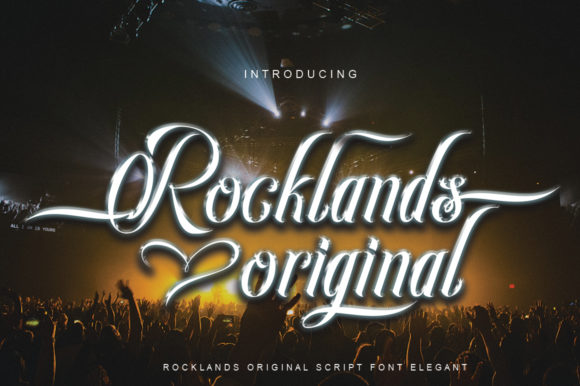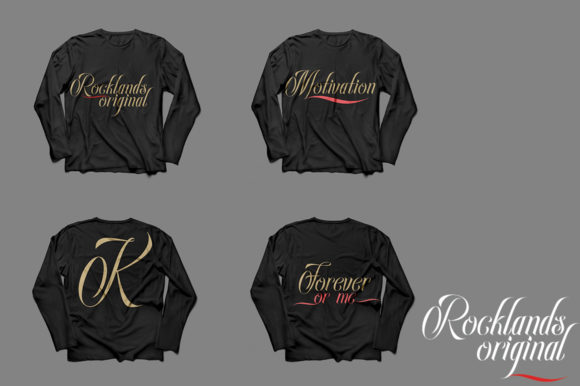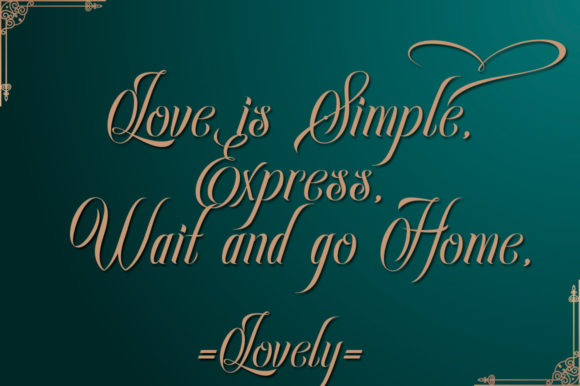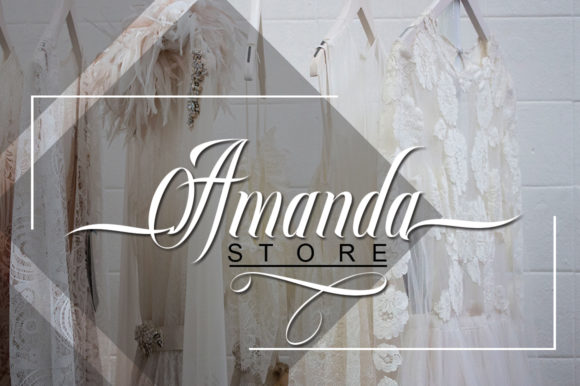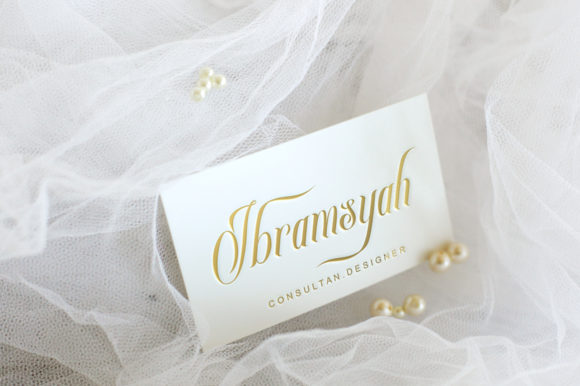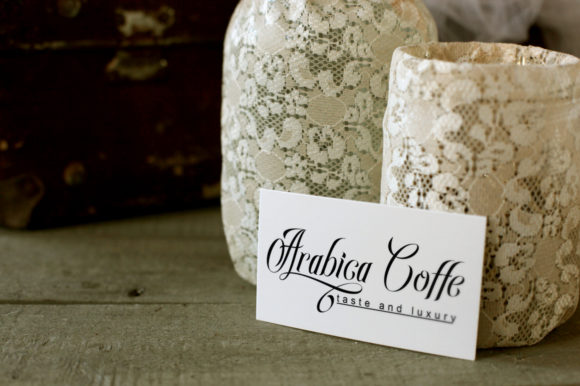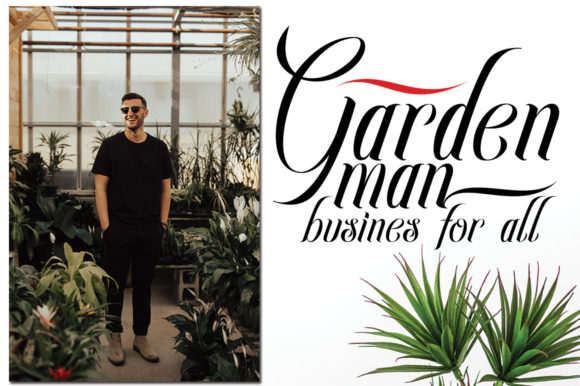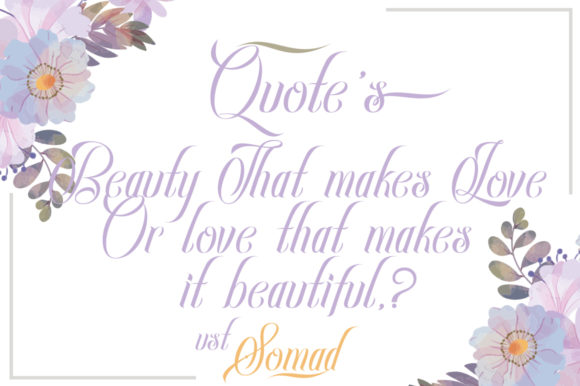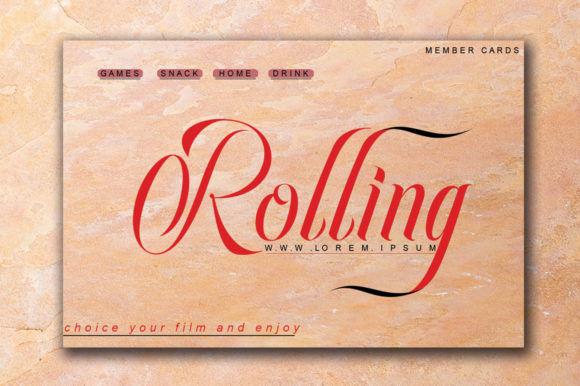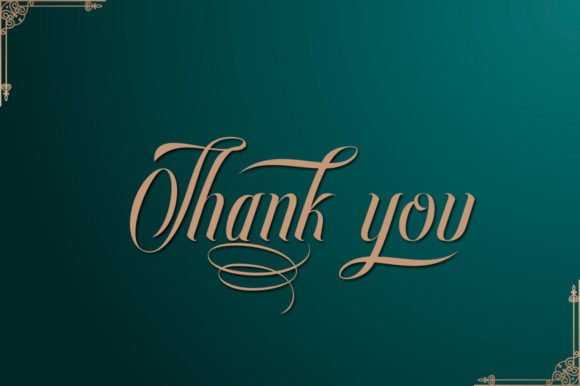
Rocklands Original Font
About Rocklands Original Font
Rocklands Original is an elegant handwritten font ready to be used in your future projects.
Use it in a wide variety of applications from logos, book covers, product presentations to anything else you can think of.